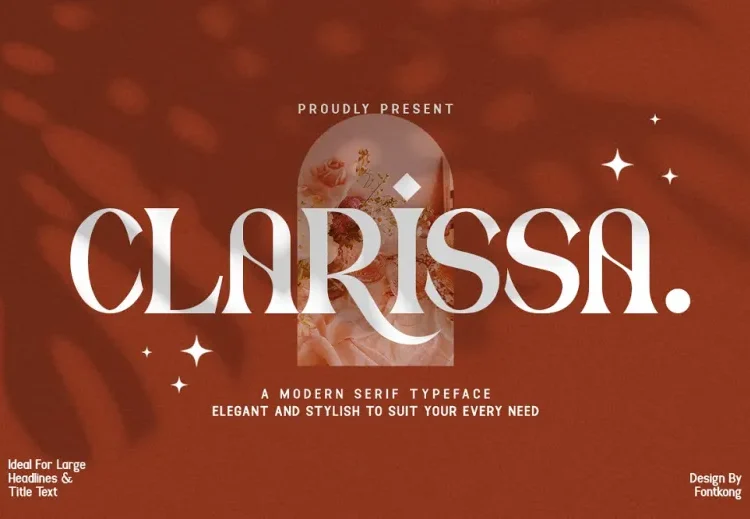
Clarissa Serif Font
Clarissa is a sophisticated modern serif font that embodies elegance and clarity, making it a versatile choice for a variety of design applications. Its refined design ensures that it looks both clear and stylish, whether used for large headlines or small text. Clarissa’s graceful lines and modern serifs provide a sense of sophistication that enhances the visual appeal of any project.
This font’s versatility makes it ideal for personal name cards and business signages, such as those for cafes, boutiques, makeup shops, and other establishments. Its clear and extroverted design ensures that it stands out in both professional and casual settings, adding a touch of elegance to everyday materials.
Clarissa is also well-suited for special occasions, including weddings and other formal events. Its elegant style makes it a great choice for invitation cards, event banners, and other related graphics, providing a touch of class and refinement to your designs.